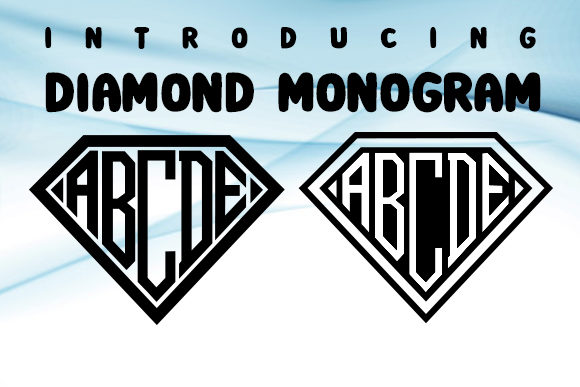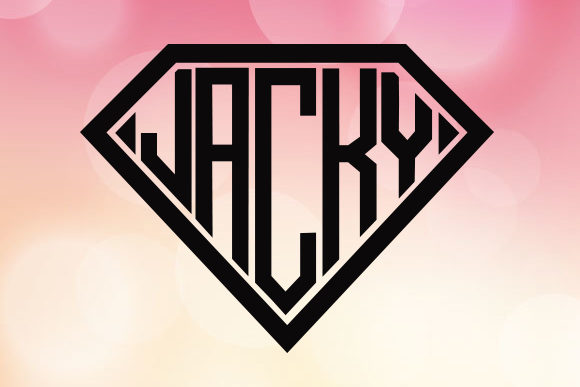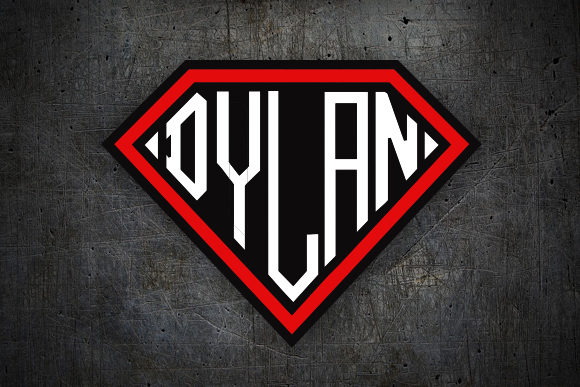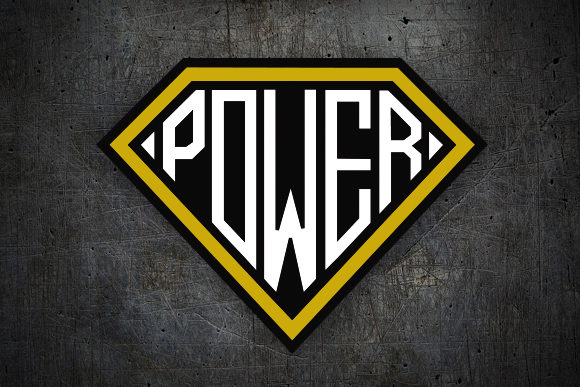
Diamond Monogram  Font
About the Diamond Monogram  Font
The Diamond Monogram  Font offers a perfect balance of form and function for your design needs. Diamond Monogram is a unique decorative font. Whether it’s for the web, print, moving images, or anything else, this font will look spectacular!
Diamond Monogram’s decorative style is ideal for headlines, logos, short impactful phrases, and premium packaging design. Its intricate details shine in large sizes, making it perfect for branding applications requiring a touch of elegance and exclusivity. However, its decorative nature makes it unsuitable for body text or UI elements where readability is paramount.
The font’s personality is sophisticated and refined, bordering on luxurious. For a balanced pairing, consider a clean sans-serif like Open Sans or Lato for body text, providing a strong contrast in readability. Alternatively, a subtle serif like Merriweather could complement its elegance while maintaining visual interest.
Avoid pairing it with other highly decorative fonts, as this would create visual clutter. Diamond Monogram works best as a statement piece, paired with fonts that provide a strong counterpoint in terms of weight and style.
Diamond Monogram  Font Usage Examples
Diamond Monogram  Font Example